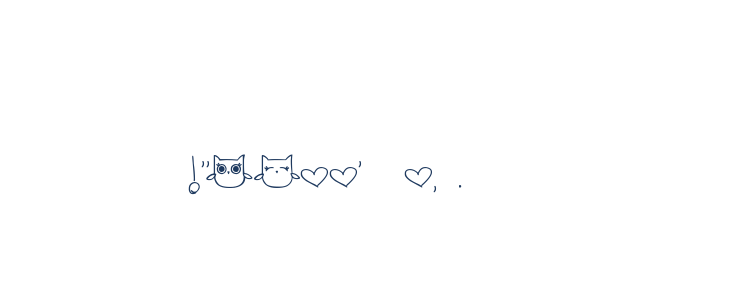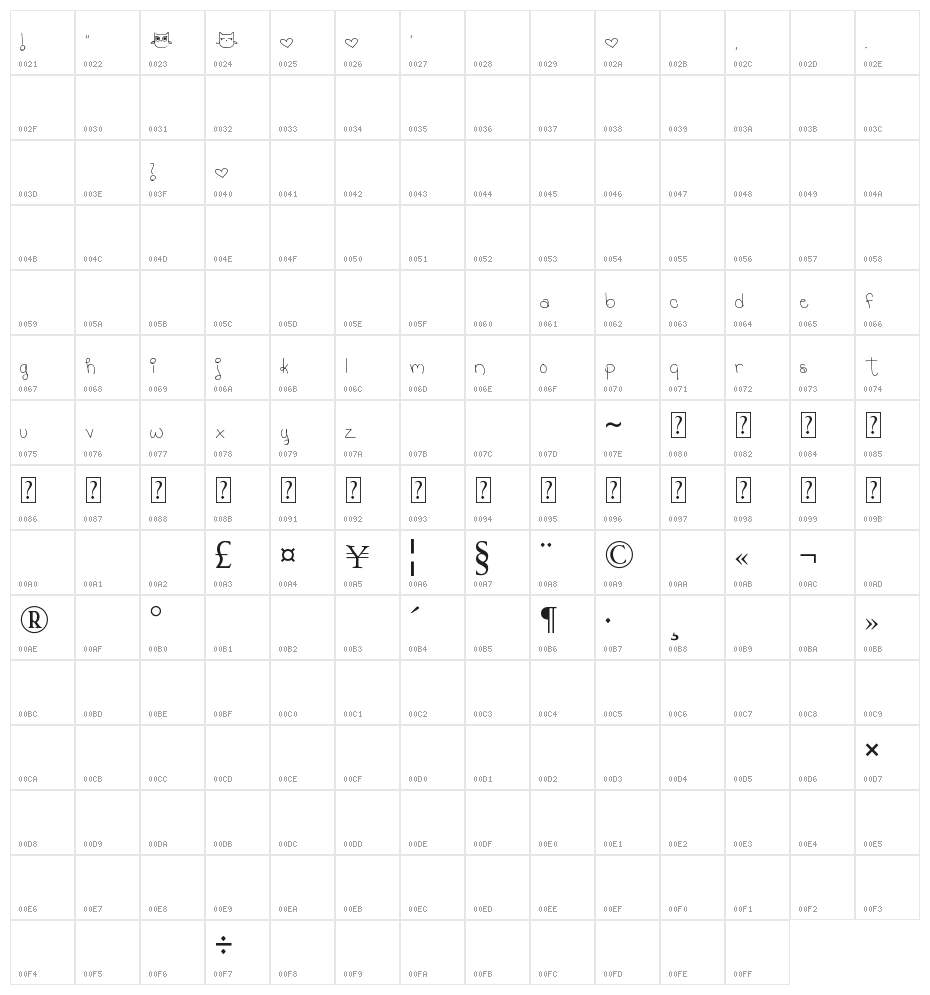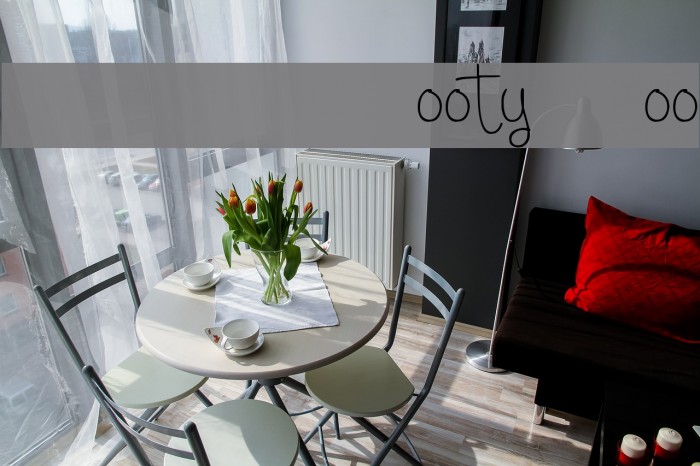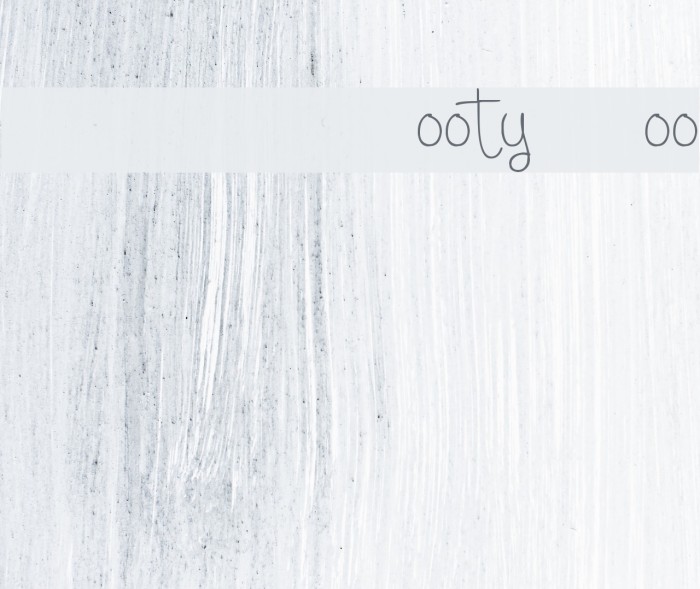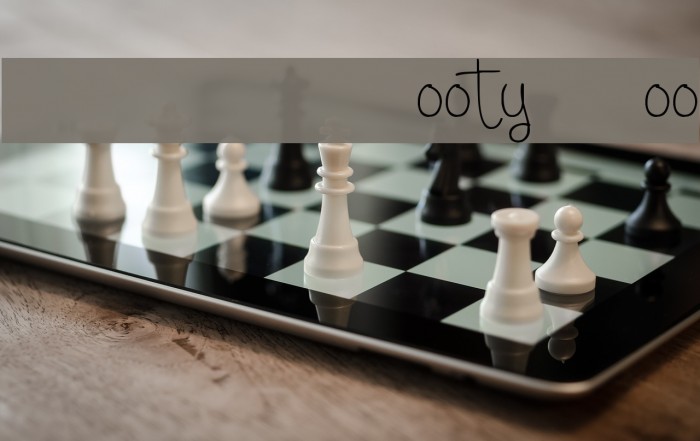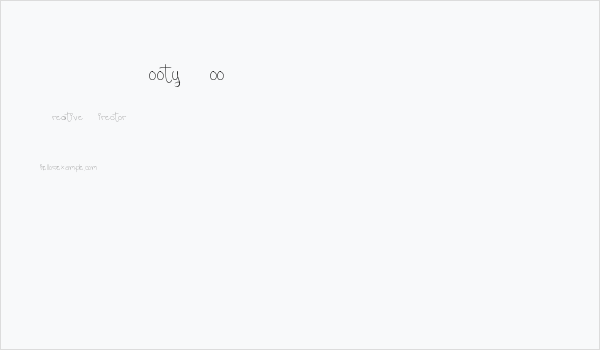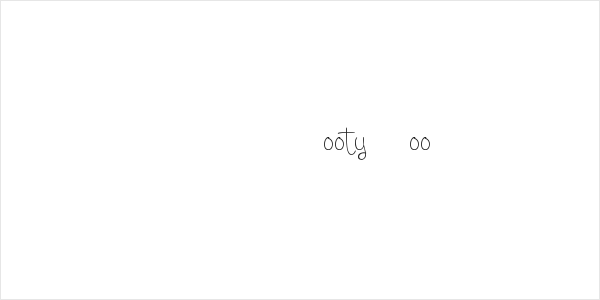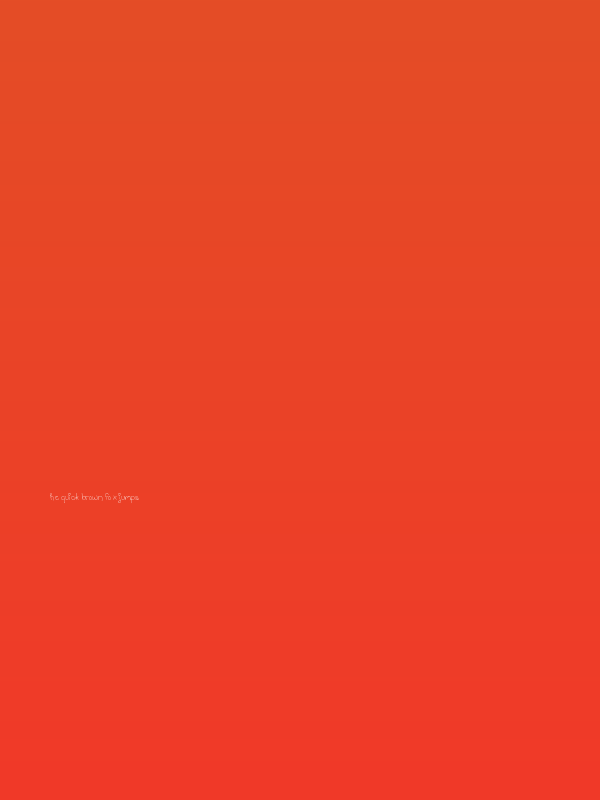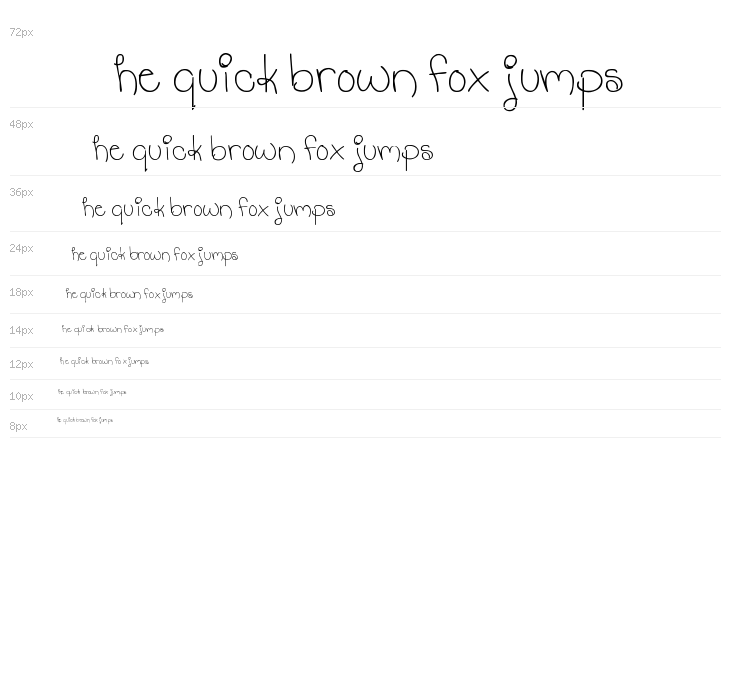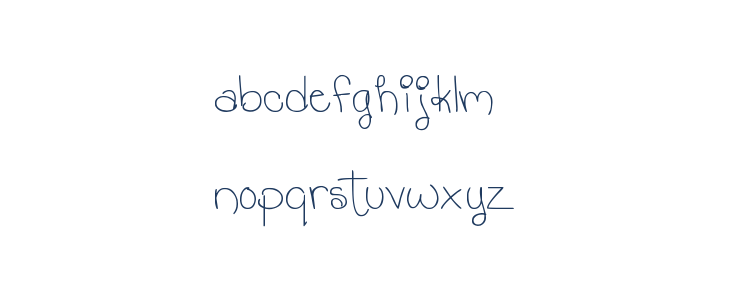
MTF Hooty Coo Font
MTF Hooty Coo Description
This playful and whimsical font features a handwritten style with charming, rounded characters. The letters have a light, airy feel, with a consistent stroke width that gives it a friendly and approachable appearance. The font includes unique decorative elements such as small owl and heart symbols, adding a touch of personality and fun. The lowercase letters are slightly irregular, enhancing the casual and informal vibe. This font is perfect for projects that require a personal touch, such as greeting cards, children's books, or playful branding.
| Proposed Projects | Ideal for greeting cards, children's books, playful branding, and informal invitations. |